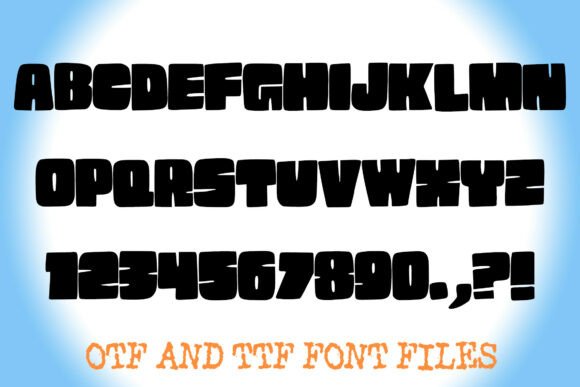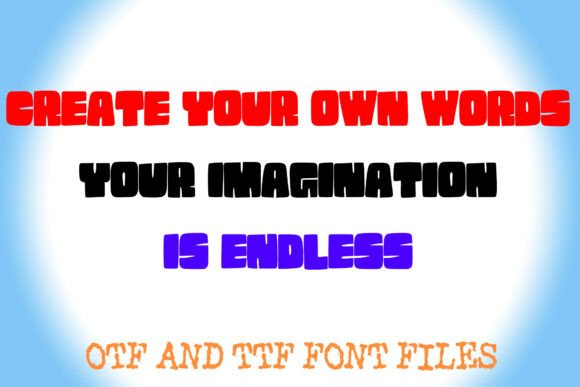
Chunky Block Comic Font – Free Download
Introduction to Chunky Block Comic Font
Inject a burst of fun and personality into your creative projects with Chunky Block Comic Font, the perfect typeface for bringing a smile to any design.
This irresistibly playful font features a bold, hand-drawn style with slightly irregular shapes that give it an authentic, bubbly, and charismatic charm Each character is crafted to capture the essence of classic cartoon lettering, with thick, friendly strokes and a solid, blocky structure that makes it pop off the page.
Key Features of Chunky Block Comic Font
Why Choose Chunky Block Comic Font?
Chunky Block Comic Font offers exceptional quality and versatility, making it a valuable addition to your design toolkit. Whether you’re creating for personal projects or commercial use, Chunky Block Comic Font delivers professional results.